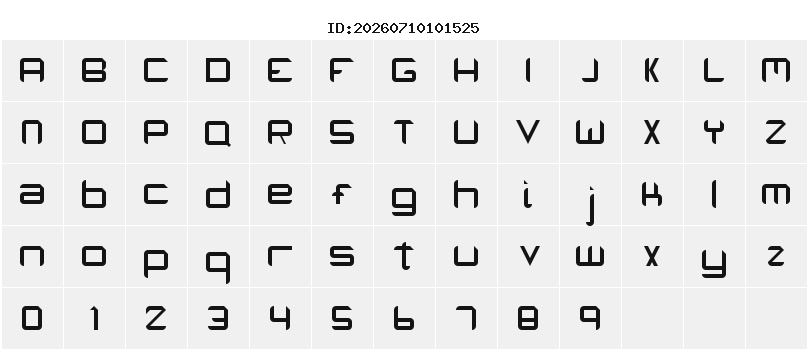
• Font Name: Eduardo Barrasa
• Full Font Name: Eduardo Barrasa Regular
• Designer: edubarrasa.
• Description: ‚ÄúEduardo Barrasa‚Äù was built with FontStruct
About Eduardo Barrasa.ttf
Eduardo Barrasa.ttf is a modern, elegant sans-serif font designed for ultimate readability and visual harmony. Perfect for branding, headlines, web design, and print materials.